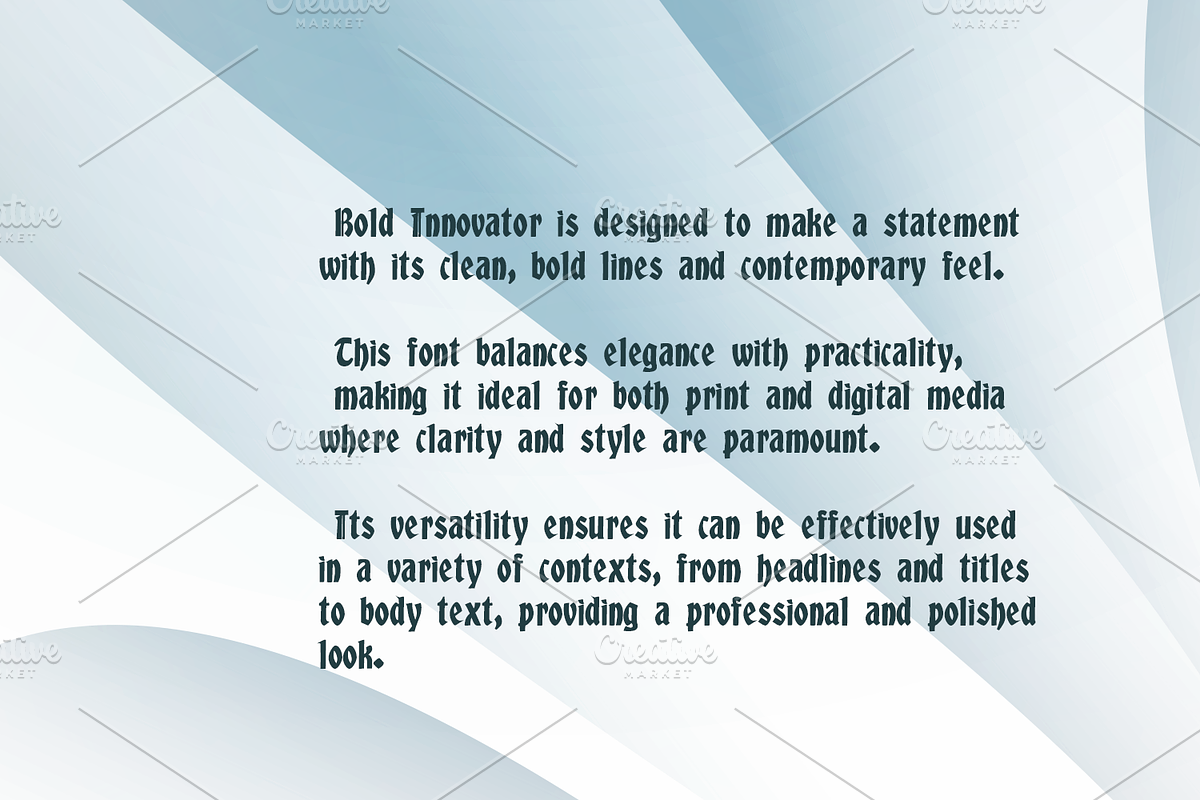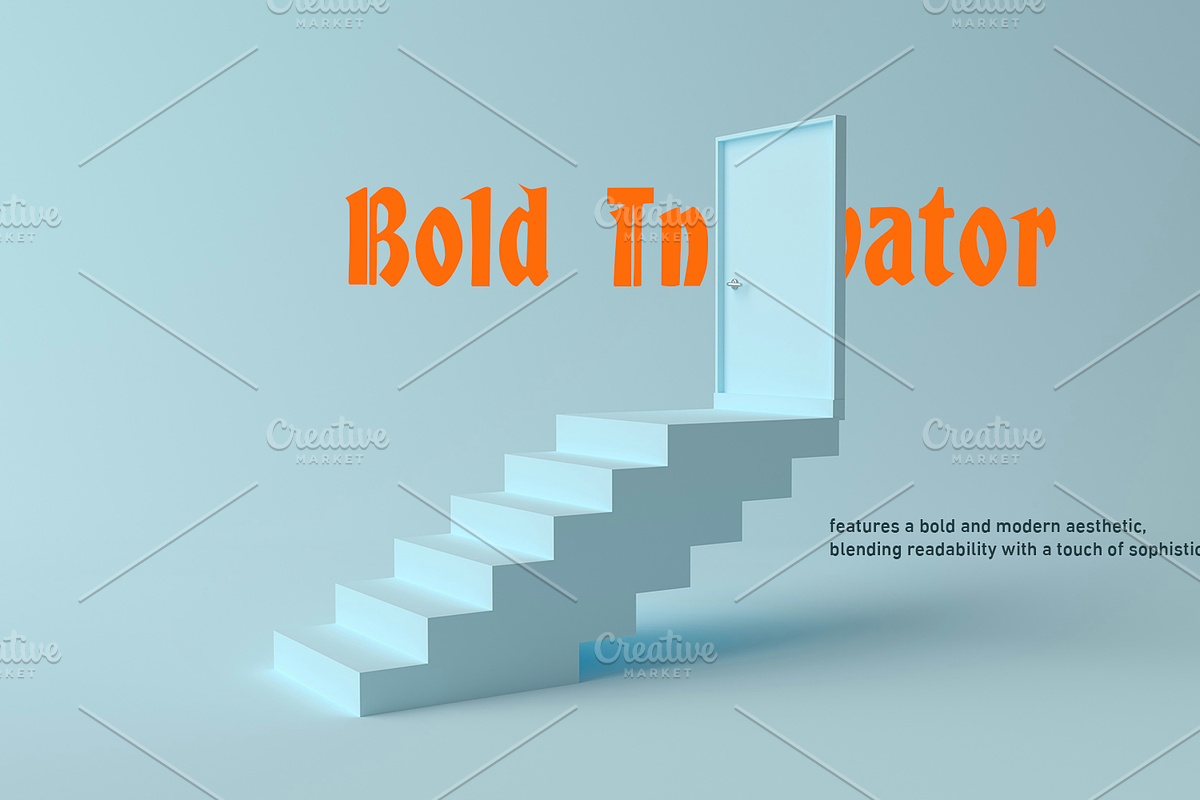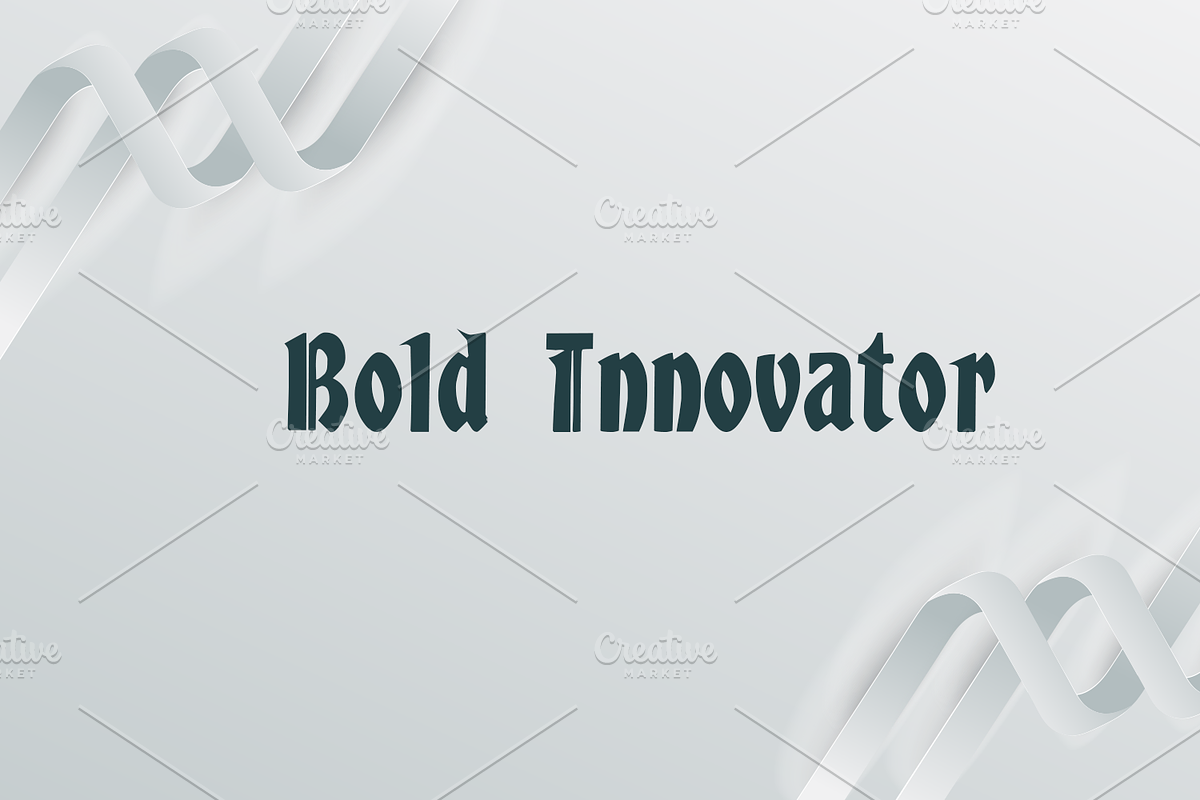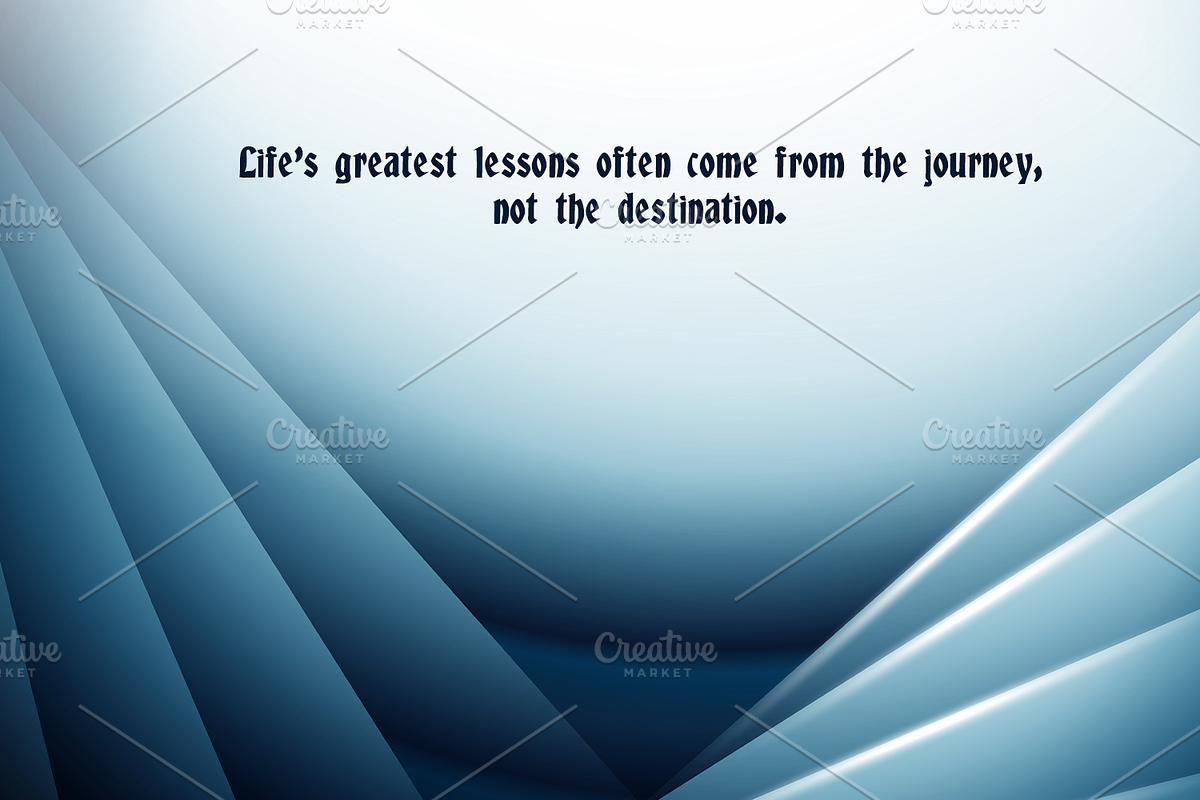
Bold Innovator-04-24
Bold Innovator is designed to make a statement with its clean, bold lines and contemporary feel. This font balances elegance with practicality, making it ideal for both print and digital media where clarity and style are paramount. Its versatility ensures it can be effectively used in a variety of contexts, from headlines and titles to body text, providing a professional and polished look.